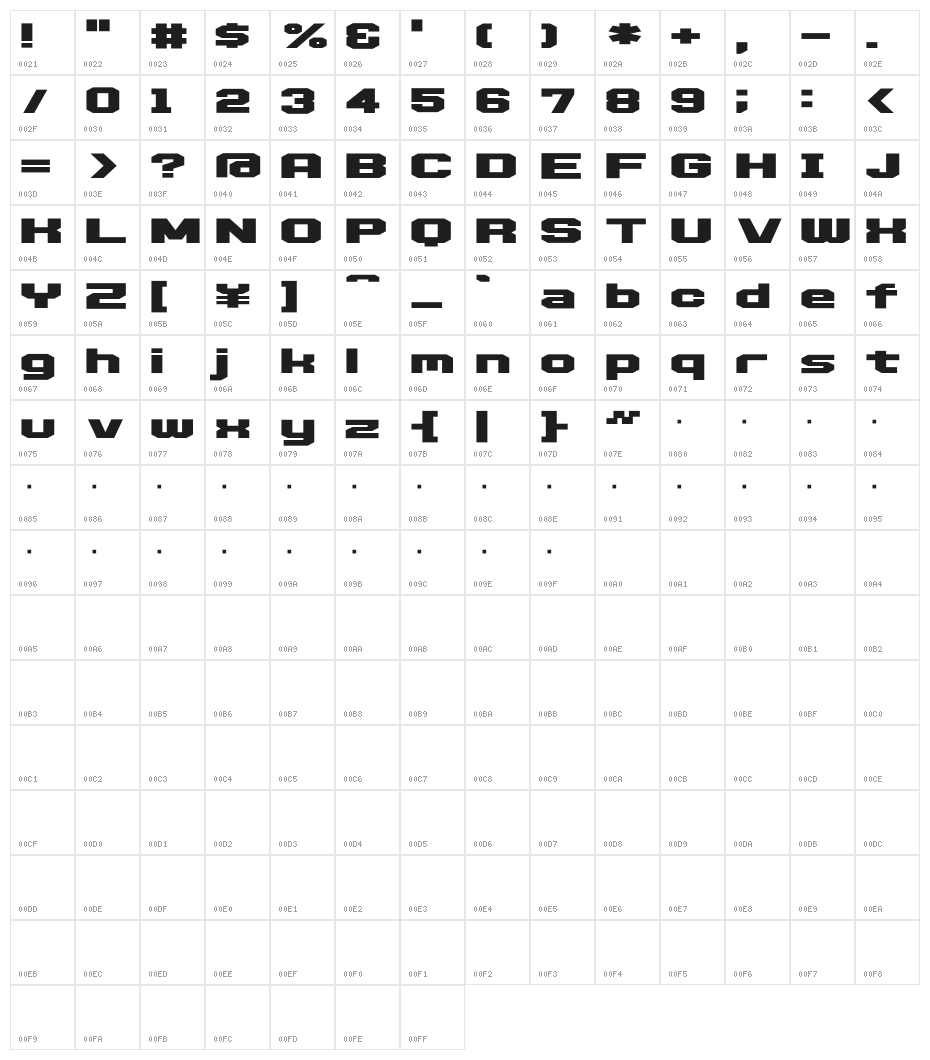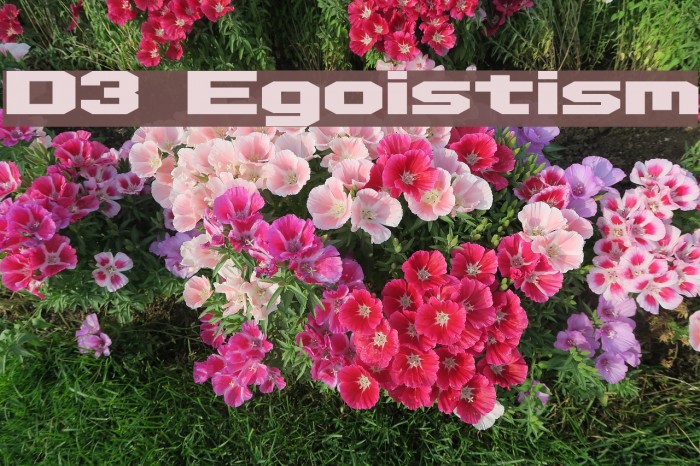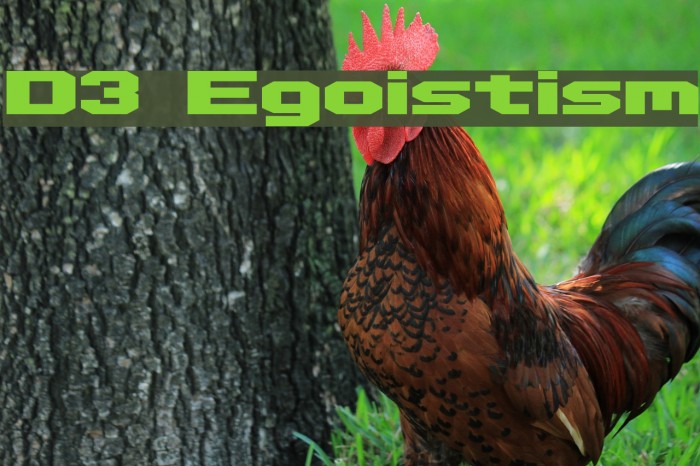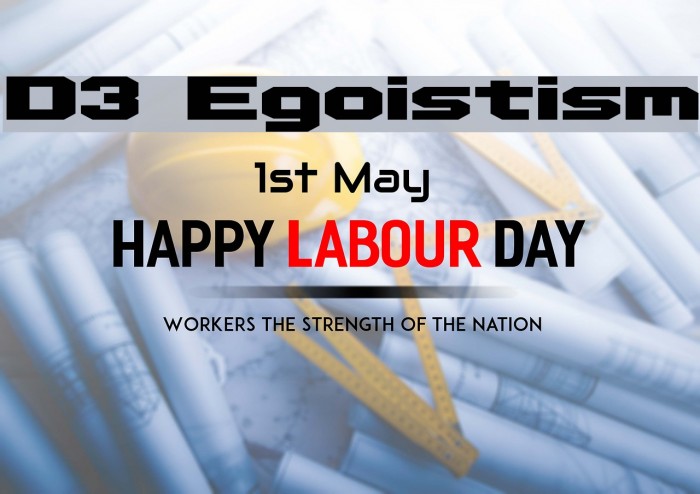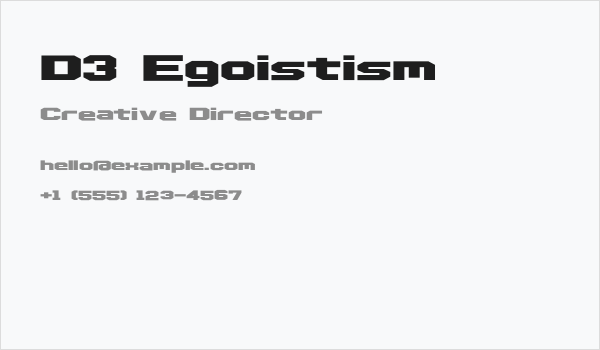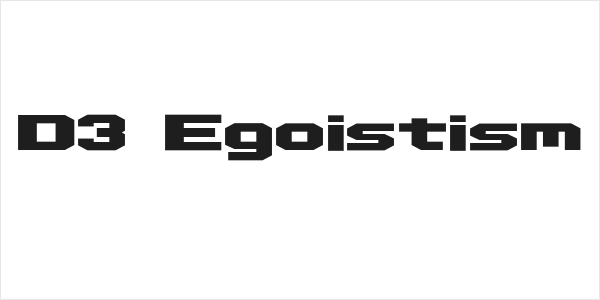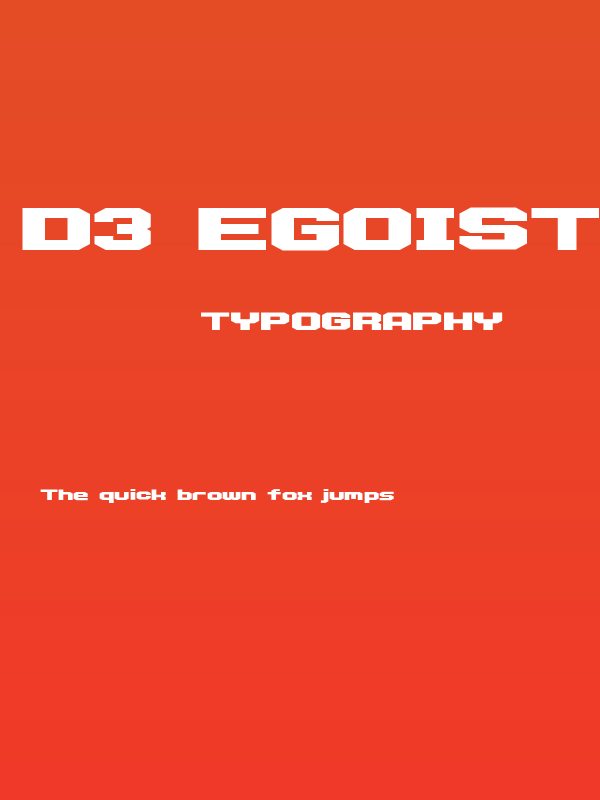
D3 Egoistism Font
D3 Egoistism Description
This font features a bold, geometric design with a strong presence. The characters are constructed with thick, block-like shapes that give a sense of solidity and strength. The uppercase and lowercase letters maintain a consistent style, with sharp angles and straight lines that create a modern and industrial feel. The numbers and special characters follow the same design principles, ensuring uniformity across all glyphs. The font's boldness and unique style make it stand out, making it suitable for attention-grabbing designs.
| Proposed Projects | Ideal for branding, posters, headlines, and any design requiring a strong, impactful typeface. |